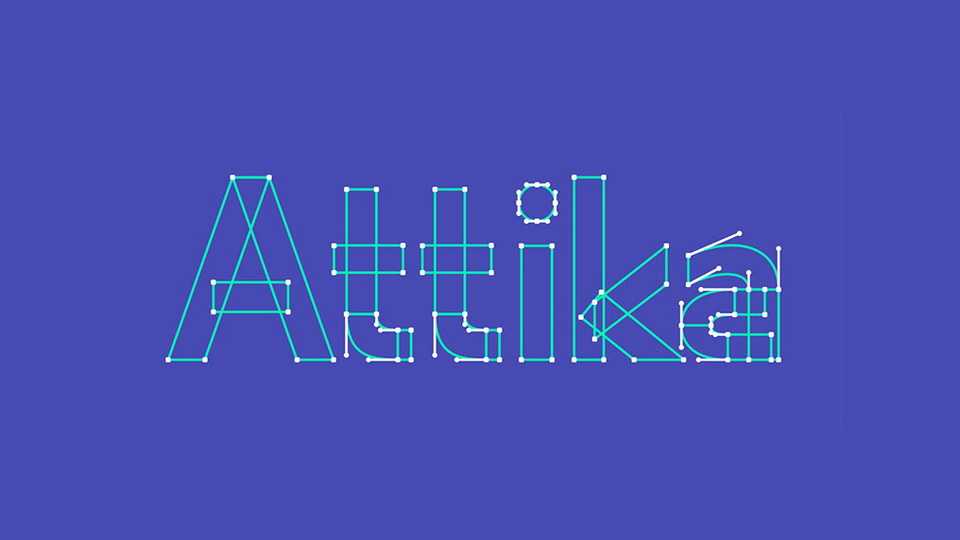
Download Attika font, a bold and versatile humanistic sans serif suitable for headlines and display text. Attika is a variable font with width and weight axis.
Designer: Matthew McAdams